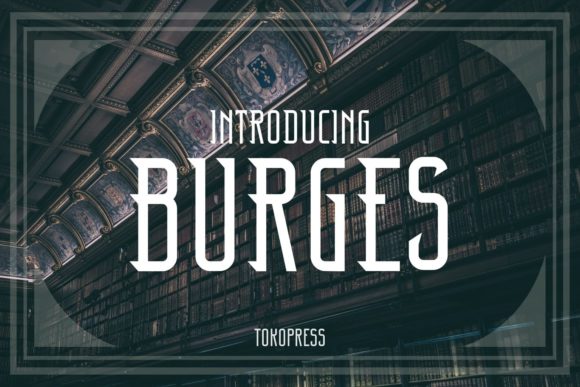
Meet Burges Font, the quintessential serif font that will transform your designs into captivating masterpieces. Its stately stature and crisp lines exude an aura of sophistication, making it the ideal choice for creating unforgettable first impressions.
Imagine your social media posts, blog headers, or even your YouTube thumbnails adorned with the timeless elegance of Burges Font. Its tall, slender characters dance across the page, commanding attention with their effortless grace and unmistakable charm.
With Burges Font at your disposal, your designs will soar to new heights of visual appeal. Its versatility knows no bounds, allowing you to effortlessly craft captivating content that resonates with your audience. Let the bold strokes and refined curves of Burges Font ignite your creativity and elevate your creations to the realm of the extraordinary.